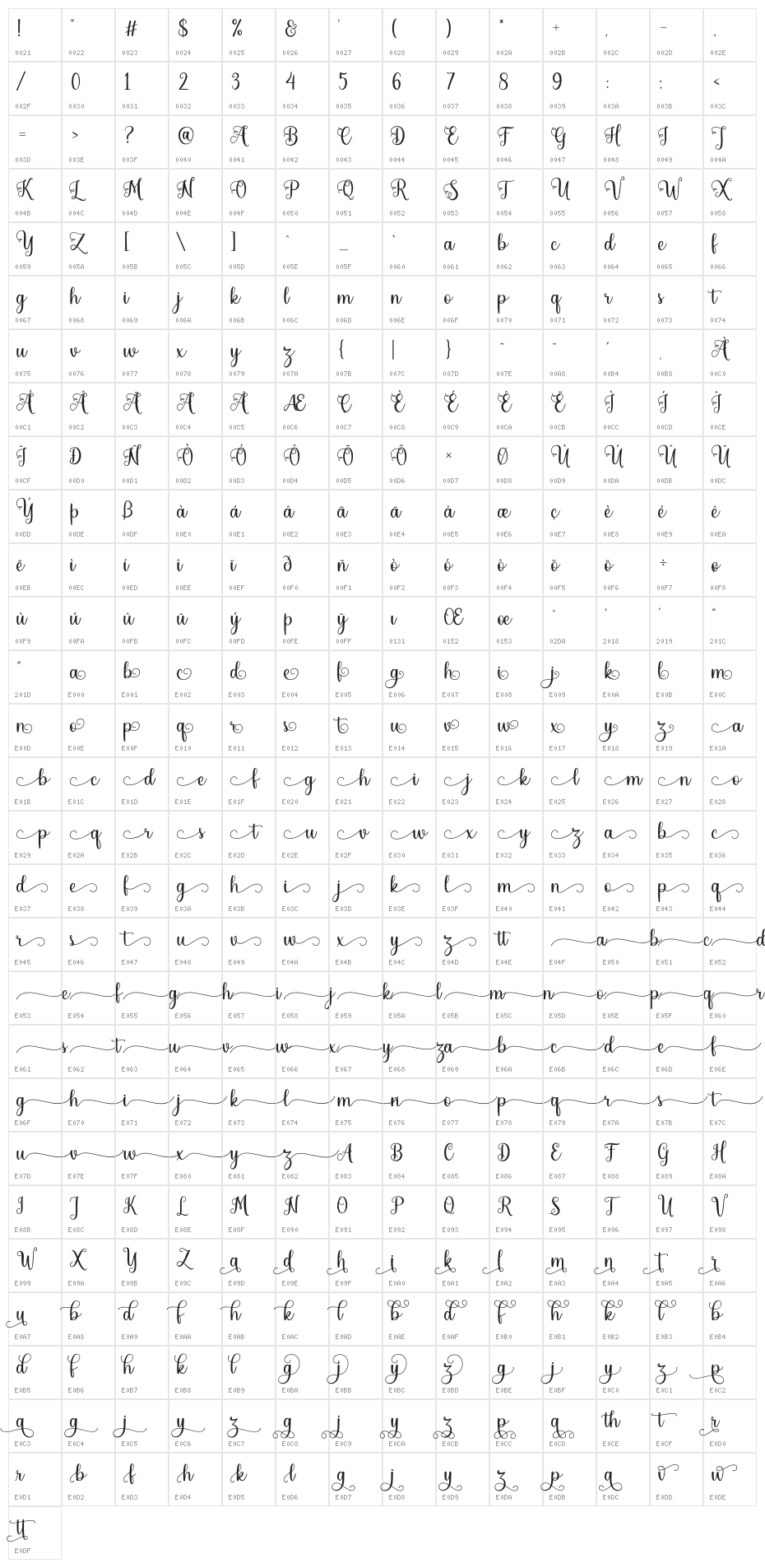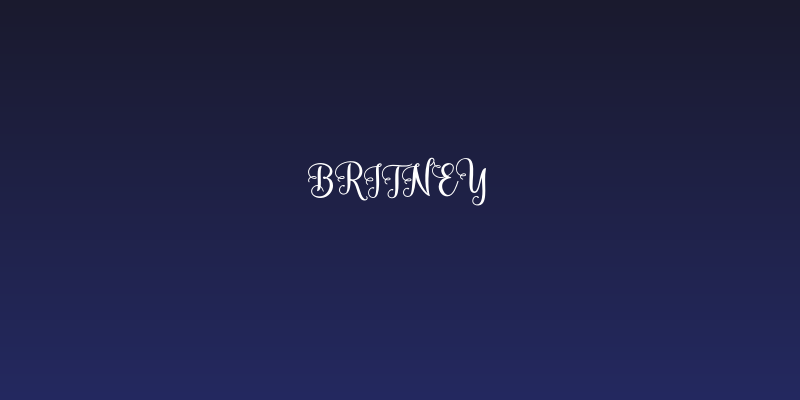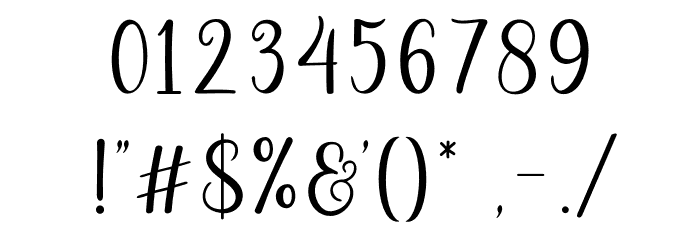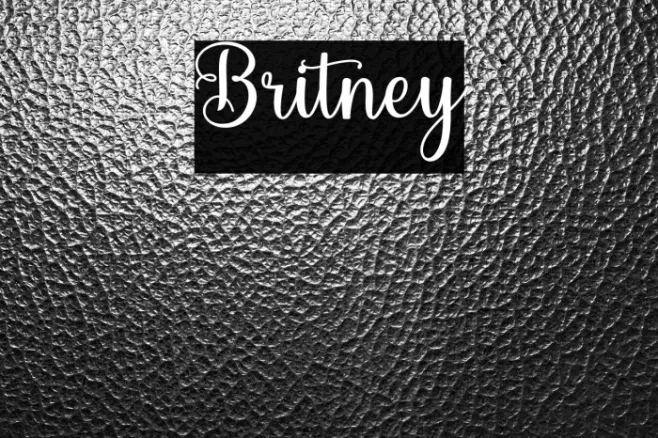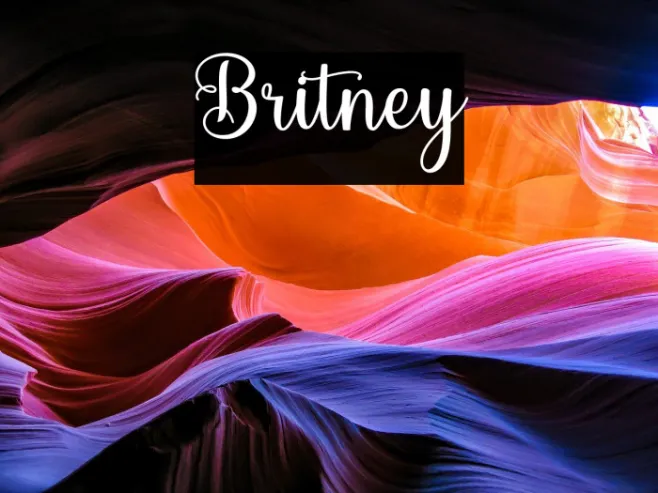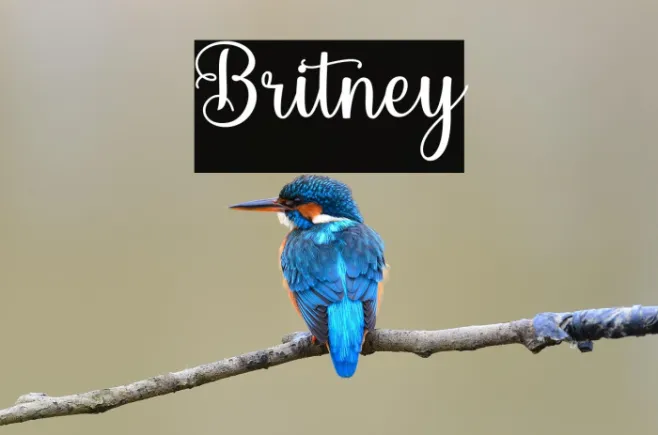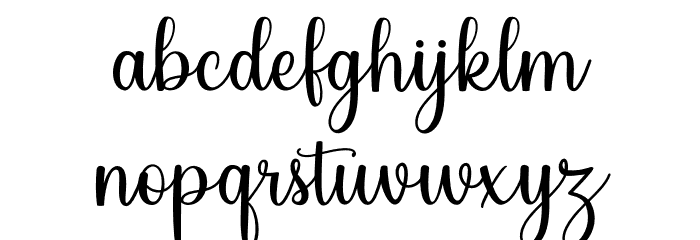
Britney Font
Britney Description
This elegant script font features a flowing, cursive style with intricate swirls and flourishes that add a touch of sophistication and charm. The uppercase letters are particularly ornate, with decorative loops and curls that give them a whimsical feel. The lowercase letters maintain a smooth, connected appearance, enhancing the overall fluidity of the font. Numbers and special characters are designed to match the graceful aesthetic, making this font suitable for a variety of creative projects. Its artistic flair makes it ideal for invitations, greeting cards, and branding materials where a personal, elegant touch is desired.
| Proposed Projects | Ideal for wedding invitations, greeting cards, branding, and decorative signage. |